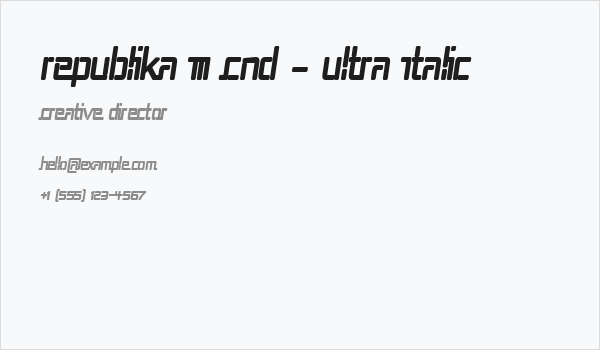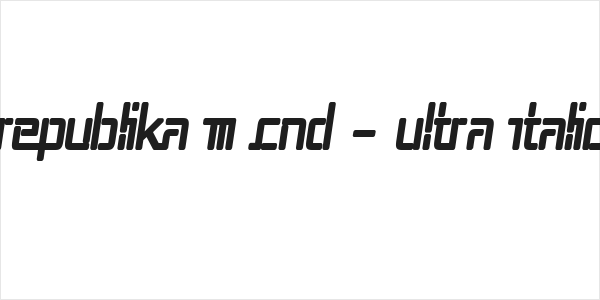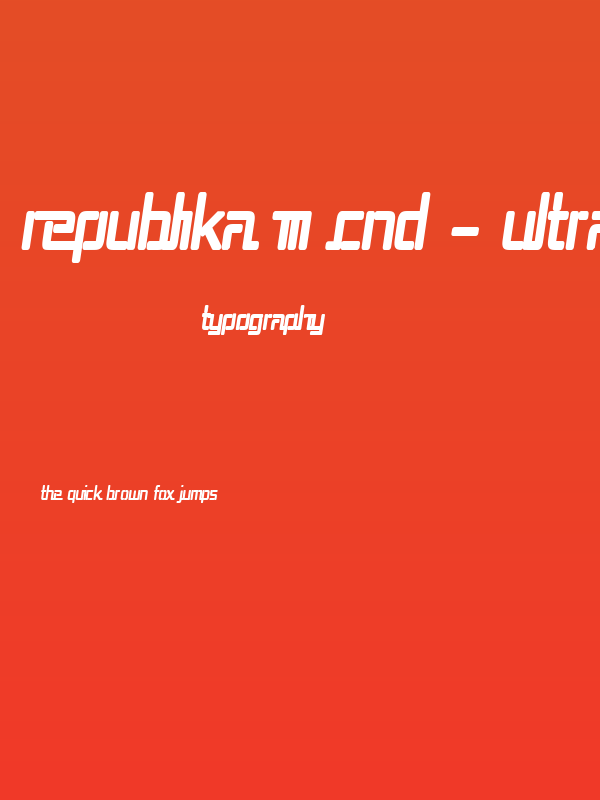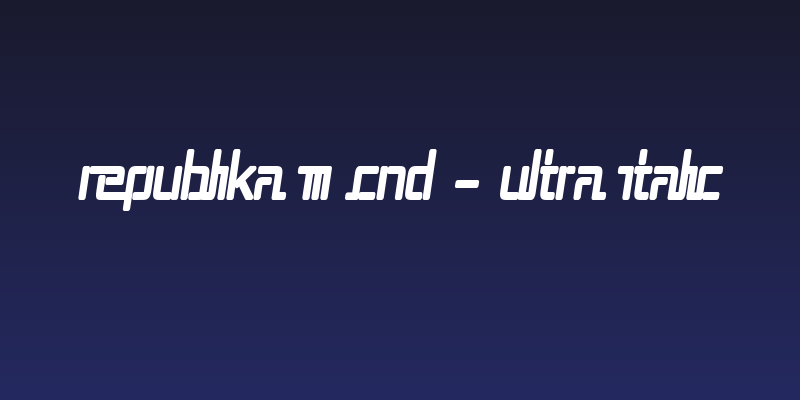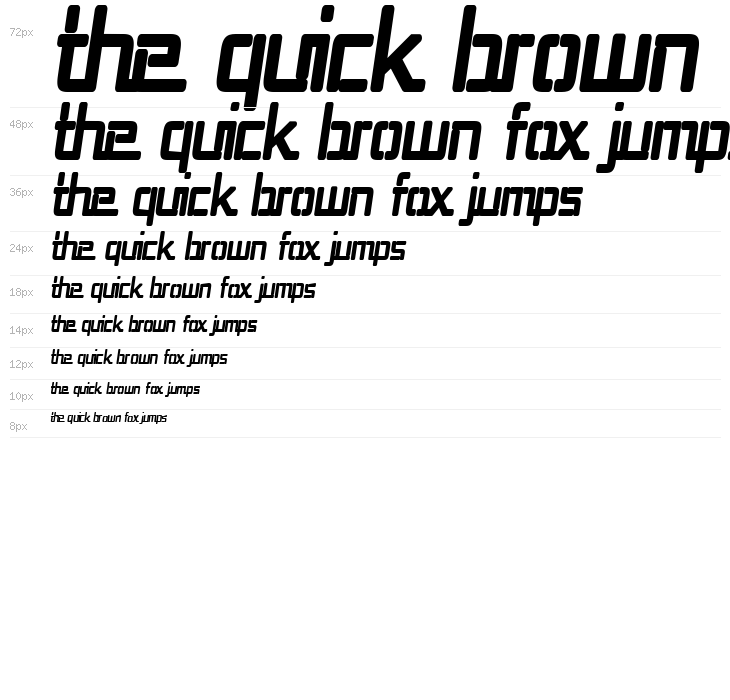
Republika III Cnd - Ultra Italic Font
Republika III Cnd - Ultra Italic Description
This font features a bold, ultra-italic style with a condensed width, giving it a dynamic and modern appearance. The characters are tightly spaced, enhancing its compact and streamlined look. The strokes are thick and consistent, providing a high contrast that makes each letter stand out distinctly. Its geometric and angular design adds a futuristic touch, making it suitable for projects that require a strong visual impact. The font's unique style is ideal for creating eye-catching headlines, logos, and branding materials that demand attention.
| Proposed Projects | Ideal for futuristic branding, dynamic headlines, logos, and promotional materials. |